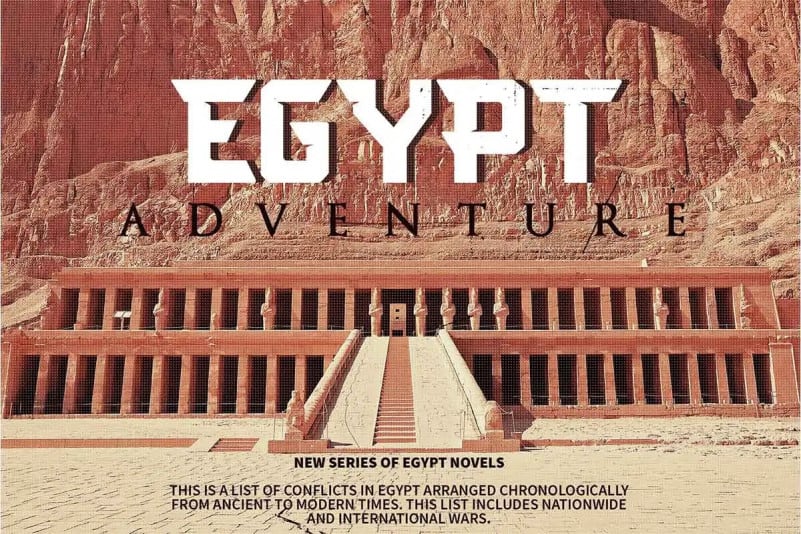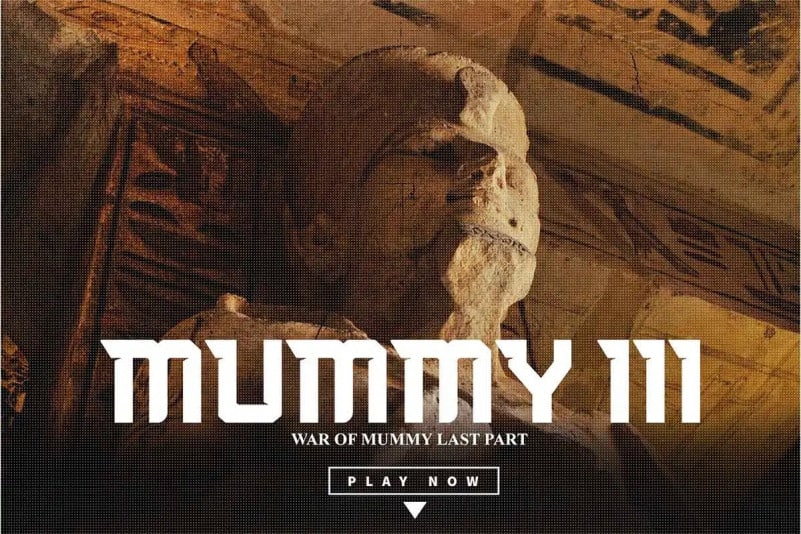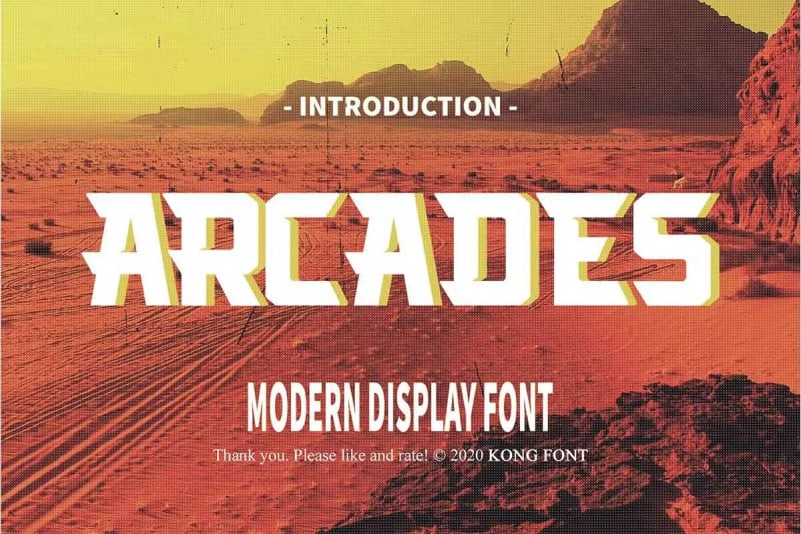
Arcades Display Font
Arcades Display Font works best as a display typeface, very suitable as to make adorable invitation for wedding, birthday, special day. A collection of letters and numbers suitable your projects also great for Logotype, Branding Design, Logo Design, Digital Lettering Arts, T-Shirt/Apparel, Poster, Magazine, Signs, Advertising Design, and also perfect for your other projects branding.